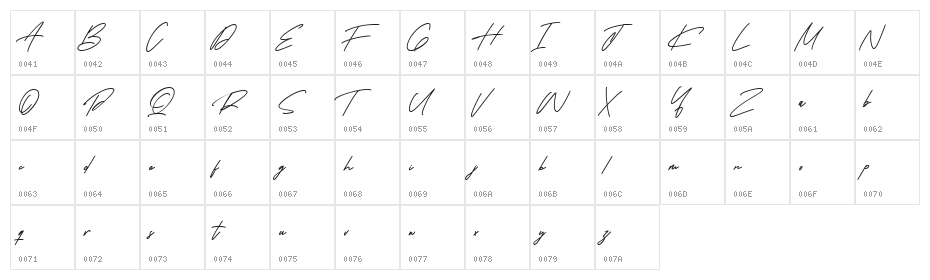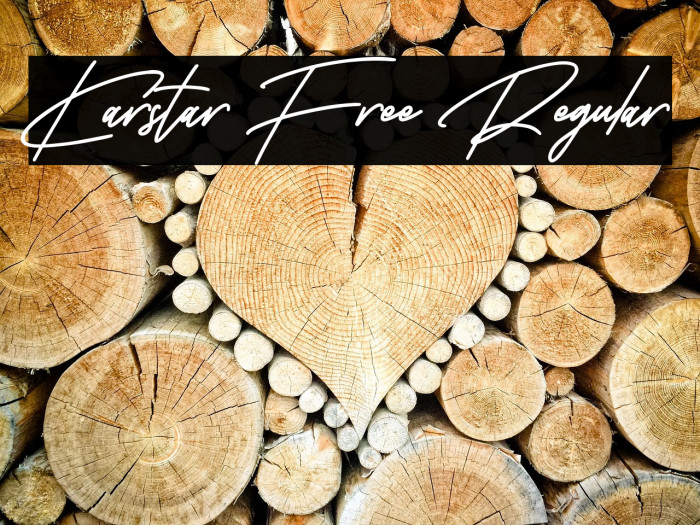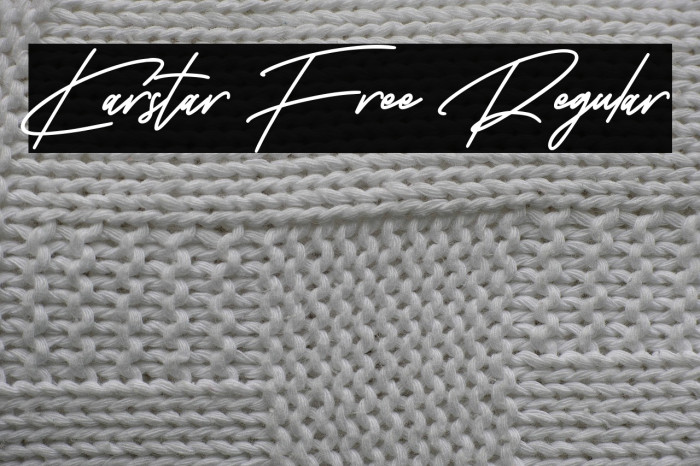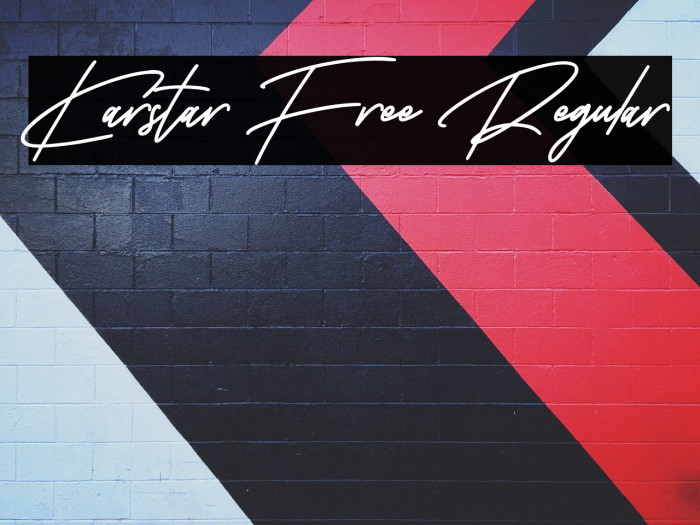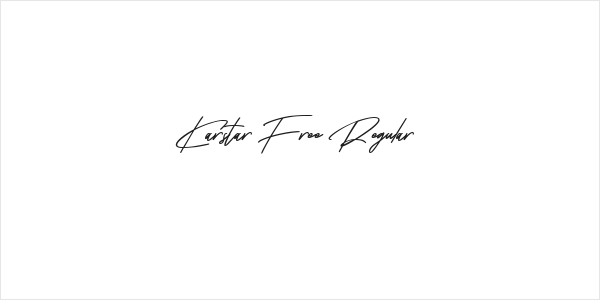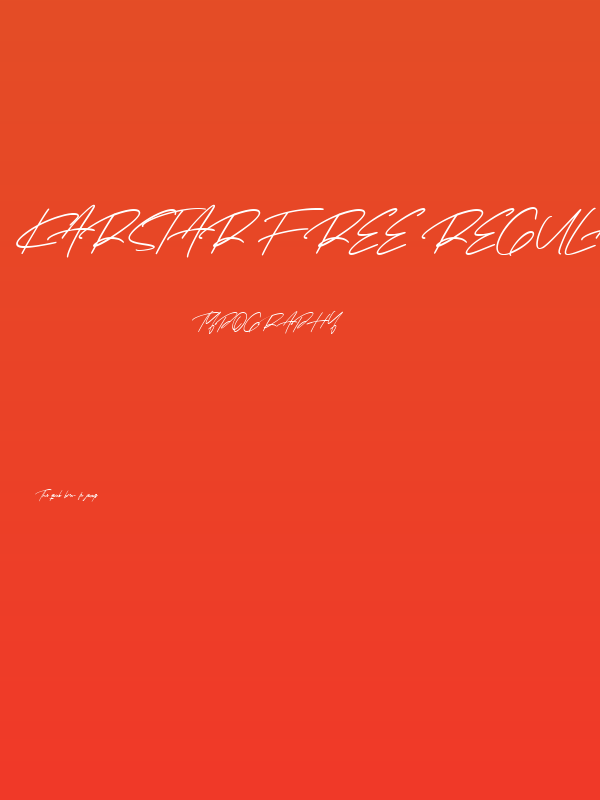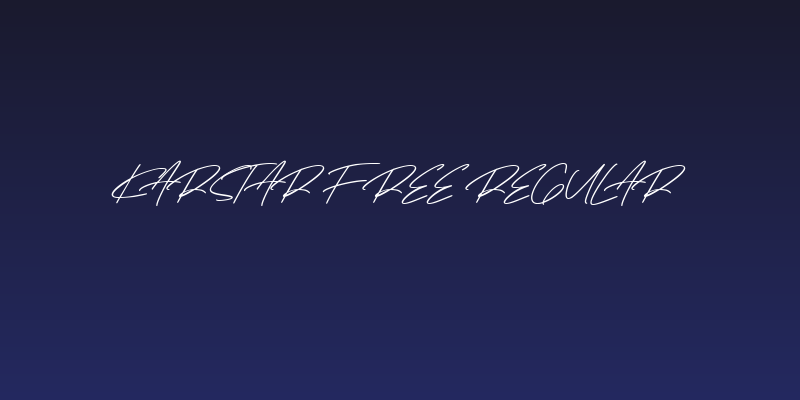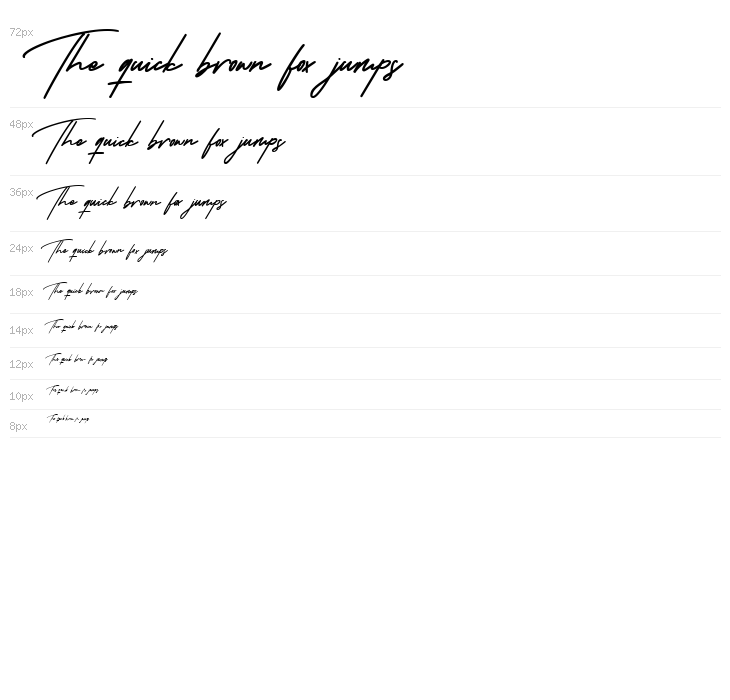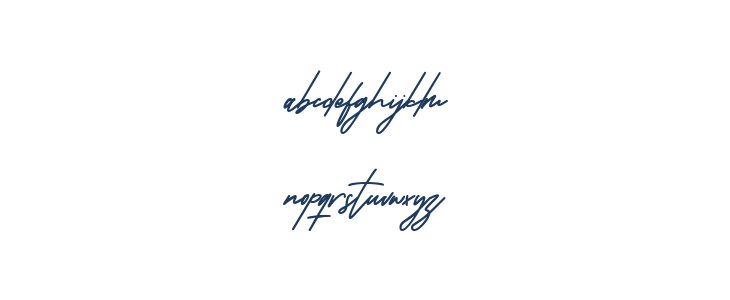
Karstar Free Regular Font
Karstar Free Regular Description
This font exudes a dynamic and expressive style, characterized by its fluid, cursive script that mimics natural handwriting. The letters are connected with sweeping strokes, giving it a sense of motion and elegance. The uppercase letters are bold and prominent, while the lowercase letters maintain a consistent flow, enhancing readability. The font's design is both artistic and modern, making it suitable for creative projects. Its unique style captures attention and adds a personal touch to any text.